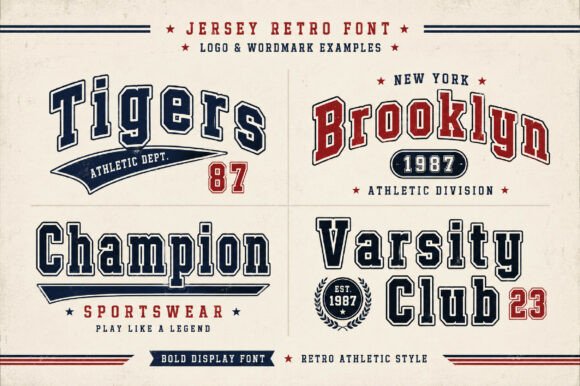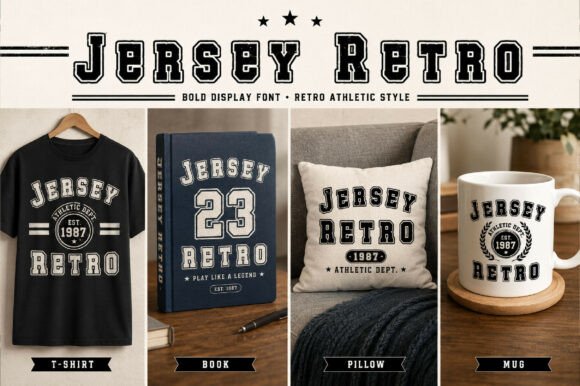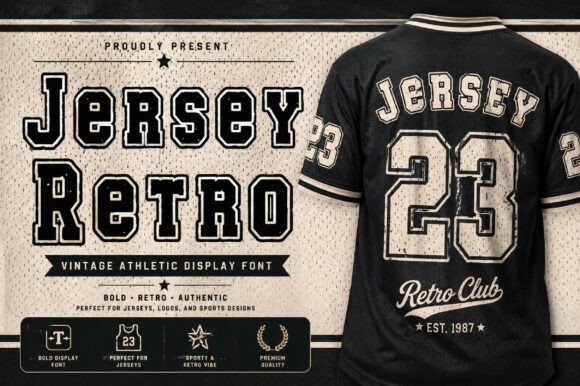
Unleash the Vintage Spirit: Jersey Retro Font Takes Center Stage
Do you remember the rush of excitement when you finally got your hands on your favorite team’s jersey as a kid? The thrill of wearing the logo, feeling like you’re part of a larger family, and being connected to the spirit of the game? For designers, capturing that essence is what makes Jersey Retro Font a game-changer.
Jersey Retro Font is a vintage sports display font that embodies the classic charm of varsity and athletic lettering. With its bold block letters and vintage outlines, this font instantly transports you to the glory days of sports. Whether you’re designing team jerseys, posters, or merchandise, Jersey Retro Font is the perfect tool to infuse old-school charm into your designs. Its layered outline overlay adds an energetic essence without compromising on legibility, making it a valuable asset for designers looking to score big in the world of sports branding and retro-inspired projects.
- Unique Characteristics: The Jersey Retro Font features a distressed, vintage aesthetic with a distressed texture and subtle wear effects, giving it a unique and nostalgic look.
Jersey Retro Font Review
Overall, I found the Jersey Retro Font to be a fun and nostalgic addition to any design project. ✨ Its distressed texture and vintage vibe immediately evoke the feeling of a classic jersey, which is perfect for sports-themed designs or retro-style graphics.
- Unique texture and style that sets it apart from more generic fonts
- Perfect for sports-themed designs, especially for baseball, basketball, or football teams
- Easy to read and understand, even in smaller font sizes
- May not be suitable for designs that require a more modern or sleek look
- Limited character set and support for certain languages
- Can be a bit overwhelming if used in large quantities or without proper balance
Overall, I think the Jersey Retro Font is a great choice for designers who want to add a touch of nostalgia and whimsy to their projects. While it may not be suitable for every design, it’s a fun and unique font that can help create a memorable and eye-catching visual identity.
Tips for Getting the Most Out of the Jersey Retro Font
Use the Jersey Retro Font for nostalgic and vintage-inspired designs.
Combine it with distressed textures and effects for a retro look.
Apply it to headings and titles for a bold and eye-catching effect.
The Jersey Retro Font is ideal for:
Creating vintage-inspired posters and advertisements.
Designing retro-themed websites and social media graphics.
Adding a nostalgic touch to packaging and branding designs.